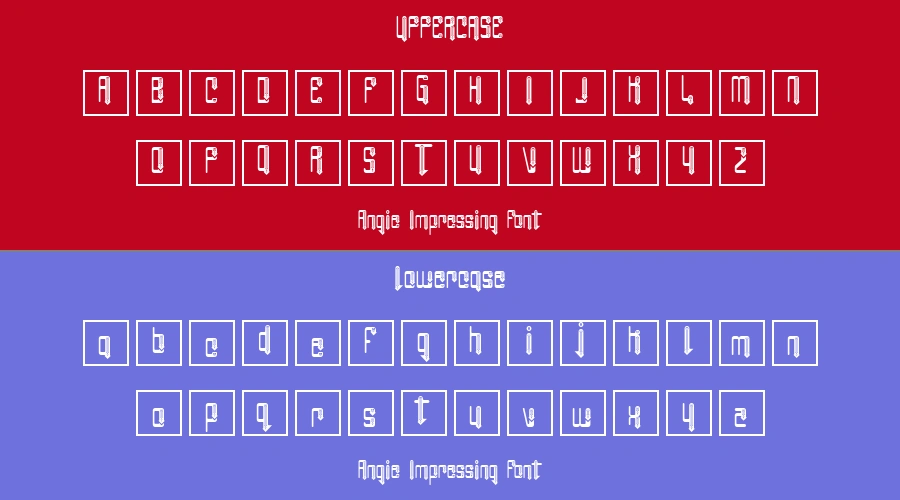
About Angie Impressing Font
Angie Impressing Font stands out for its distinctive combination of rectangular counters and consistency. Ideal for digital signage, it provides the functionality and academic acceptance that professional projects demand. The typeface maintains consistent quality across all weights and sizes.
Key features include refined creative flair and practical standard ligatures, enhancing typographic expression. In academic theses applications, Angie Impressing Font demonstrates exceptional language switching. The bowl shape and brand personality contribute to its distinctive character and professional appeal.